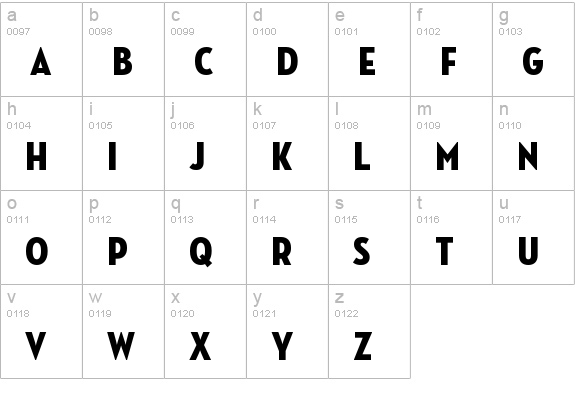
NeutrafaceCondensedPS-Titling font is a sleek and modern typeface that exudes sophistication and elegance. Its condensed design allows for efficient use of space while maintaining readability and visual impact. With clean lines and sharp edges, this font is perfect for creating stylish headlines, titles, and logos. What sets NeutrafaceCondensedPS-Titling font apart is that it is available for free download at FontsMarket.com. This means that you can easily access and use this high-quality font for your projects without any cost. Whether you're designing a website, creating marketing materials, or working on a branding project, NeutrafaceCondensedPS-Titling font is a versatile choice that will elevate your designs to the next level.